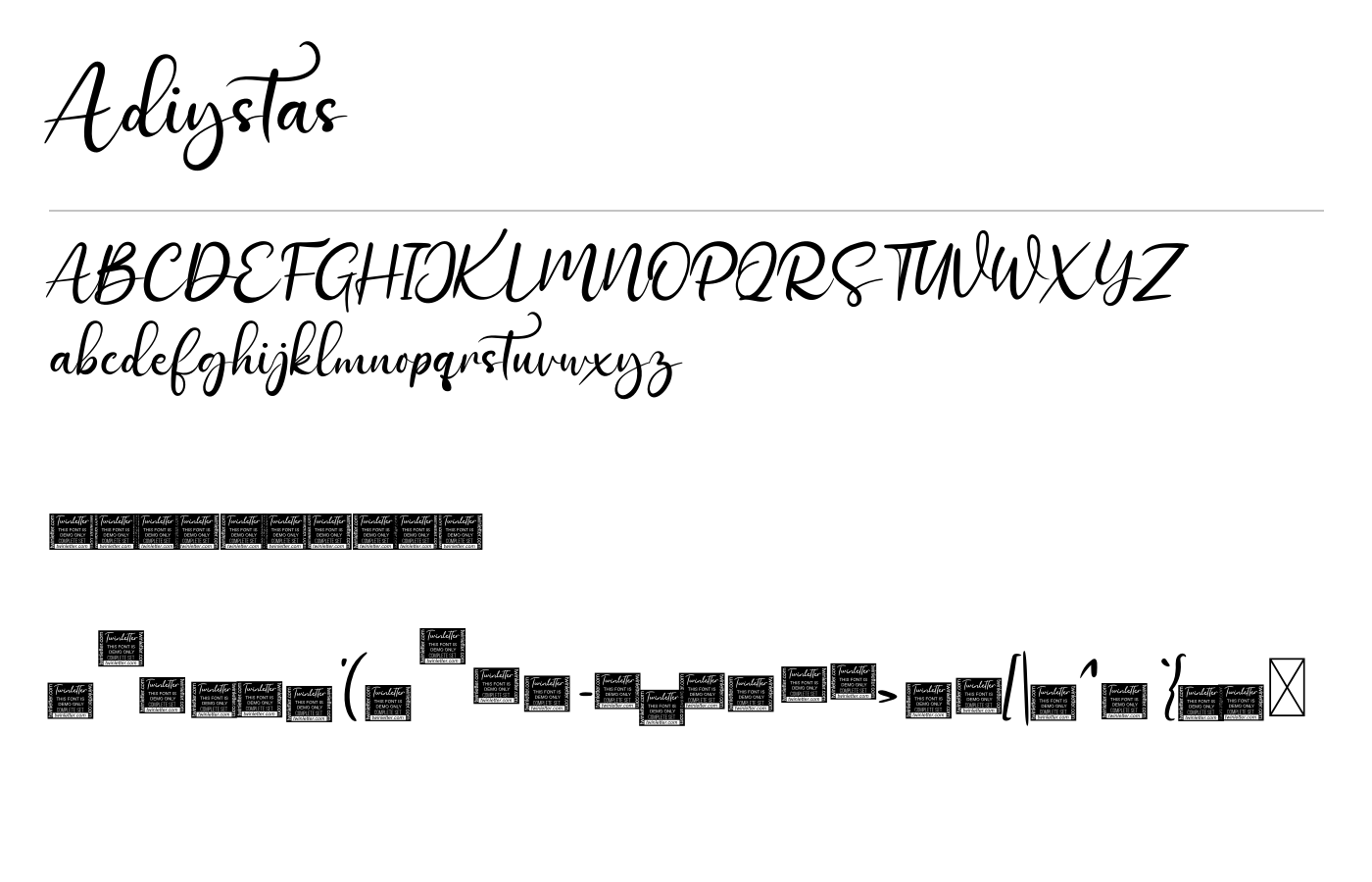
Adiystas is a stylish script font characterized by its elegant, flowing strokes and smooth, calligraphic flair. It features a balanced mix of slender and slightly thick lines with distinctive loops and swashes, making it perfect for sophisticated branding, invitations, and creative headlines where a personal, graceful touch is desired. This font works beautifully in designs aiming for a modern yet classic handwritten feel.
Adiystas Font
About Adiystas Font